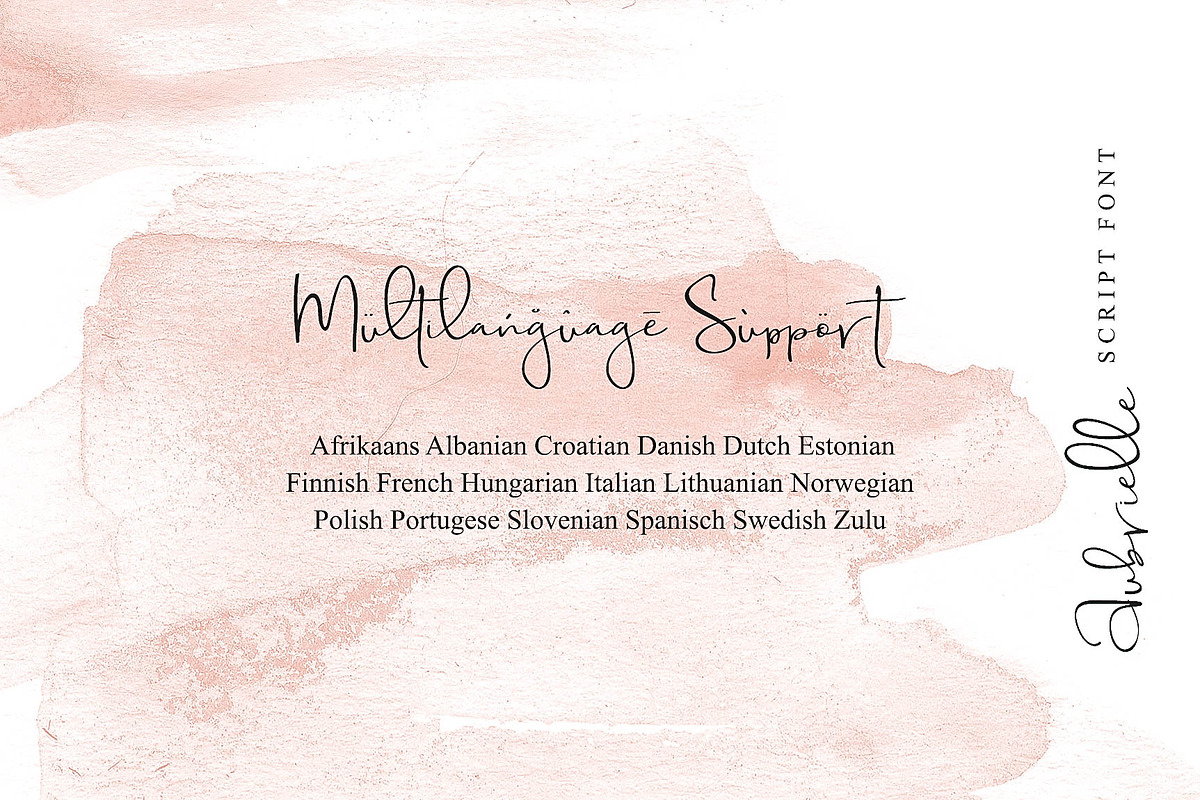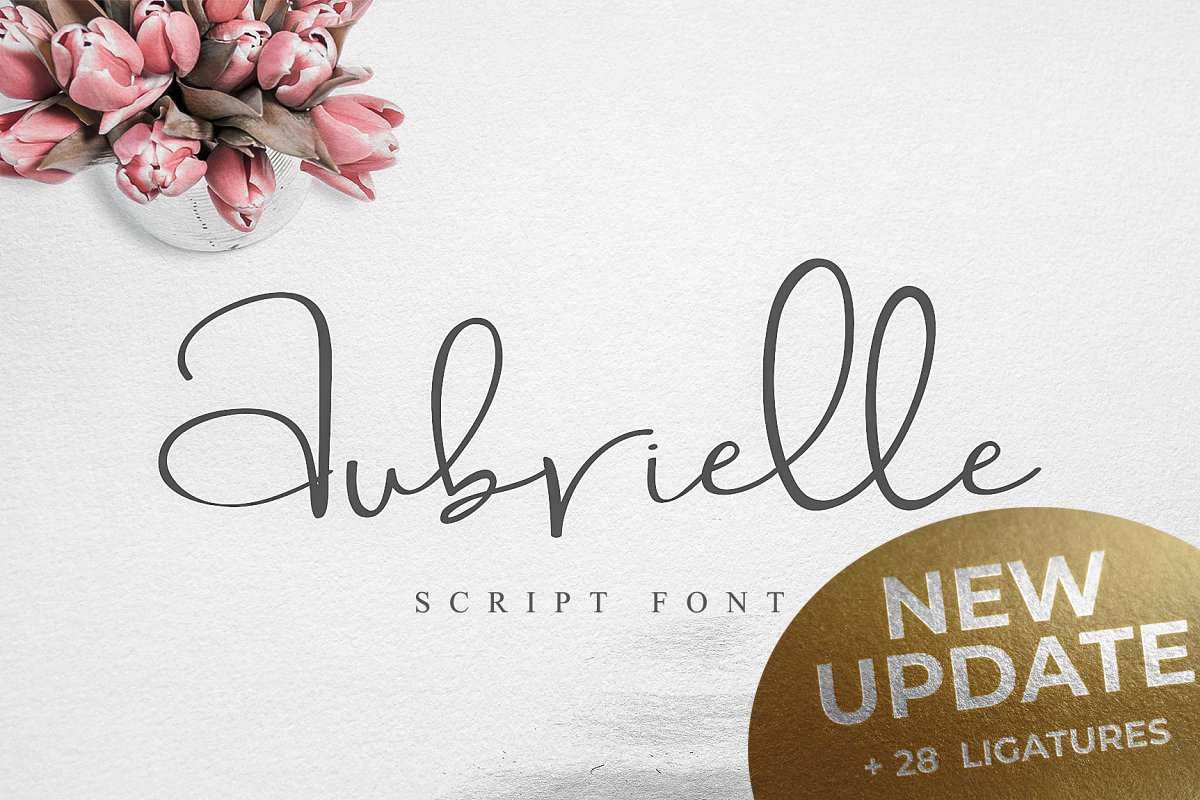
Aubrielle Script Font
Introducing Aubrielle script font! It allows you to create stunning and easy hand-lettering in an instant. Ideal for the logo, quotes, wedding, product label/packaging, fashion, letter, advertising, invitation, poster, merchandise, greeting cards, etc
★ New Update • Ligatures! Aubrielle Script Font has now been updated to include new 28 ligatures: at, ath, alt, ck, ct, et, eth, ett, fl, ft, gt, ht, ill, it, itt, lt, nt, ot, oth, ott, pl, pt, sk, sl, st, ul ut, utt.
- Support following language :
Afrikaans Albanian Croatian Danish Dutch Estonian Finnish French Hungarian Italian Lithuanian Norwegian Polish Portugese Slovenian Spanisch Swedish Zulu